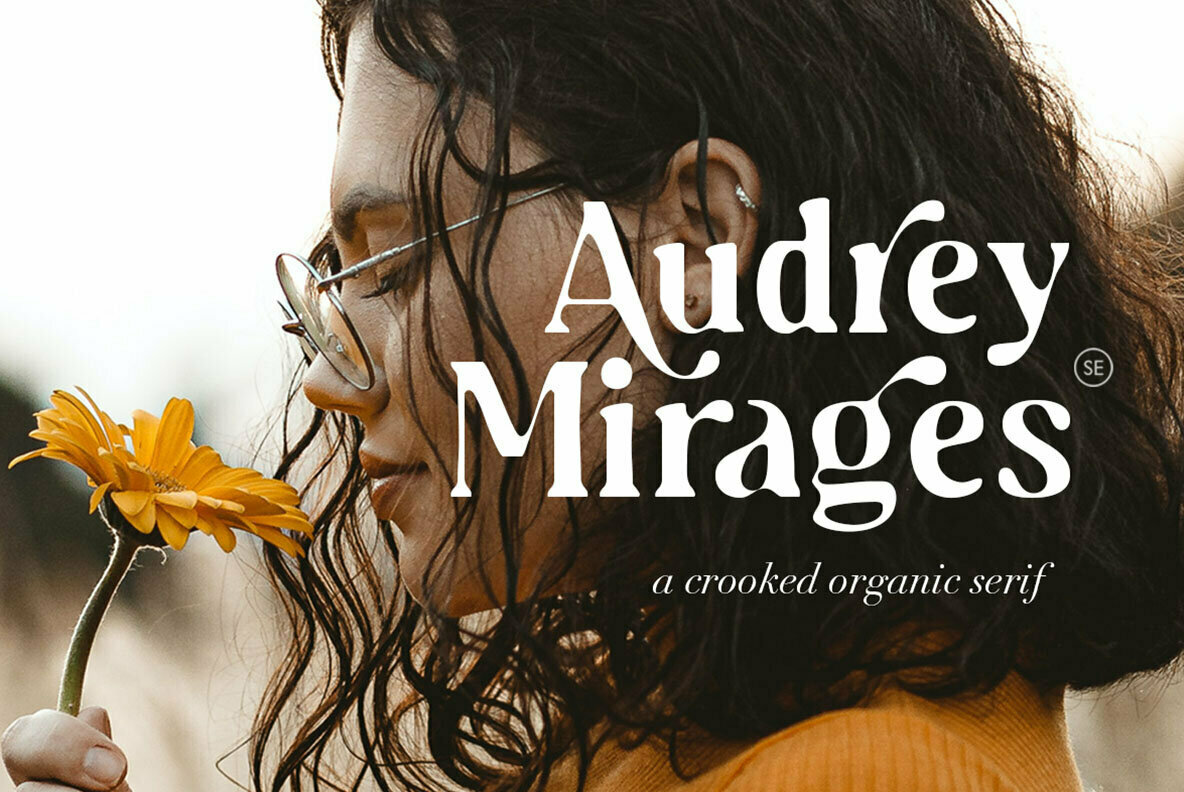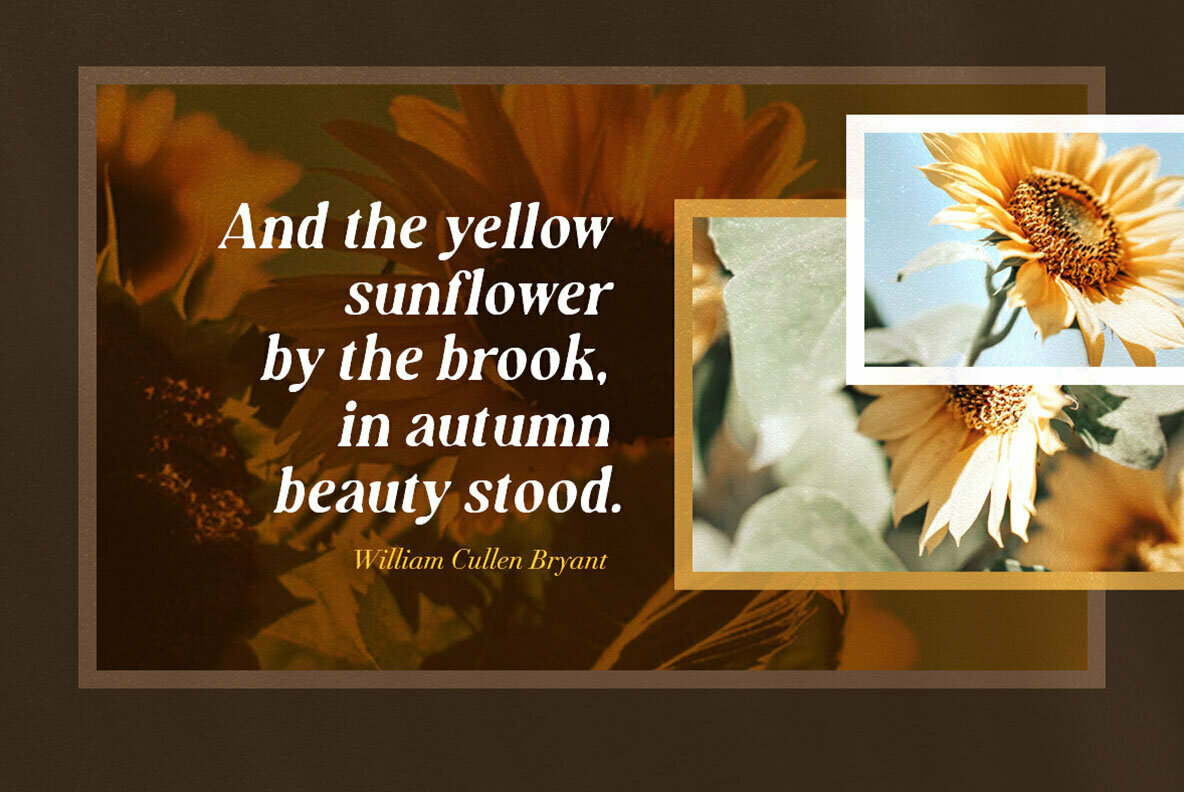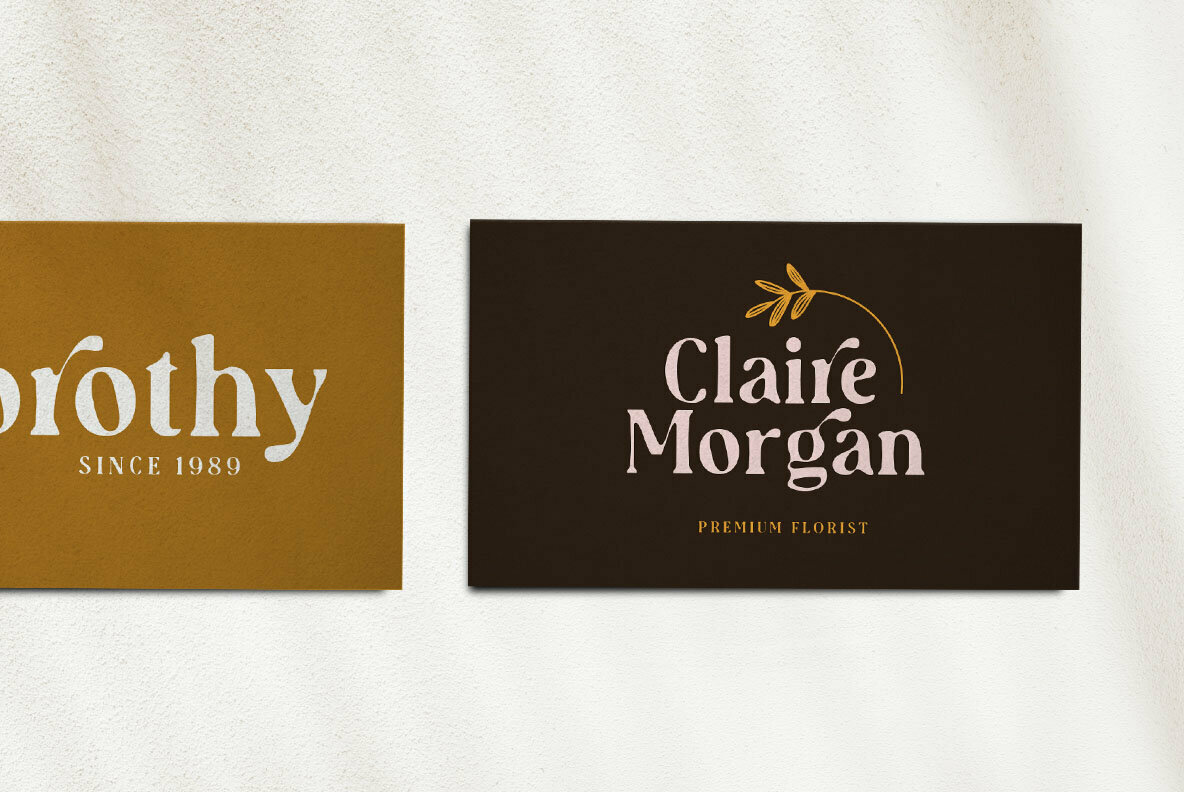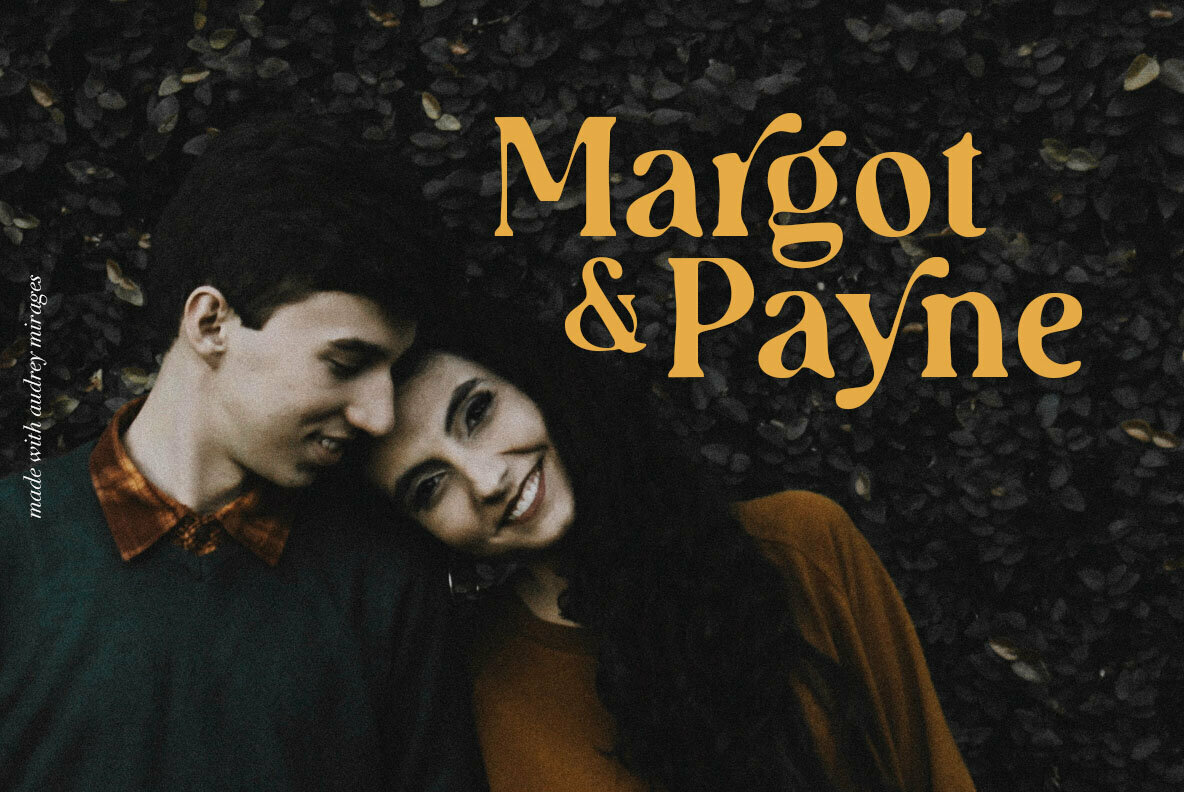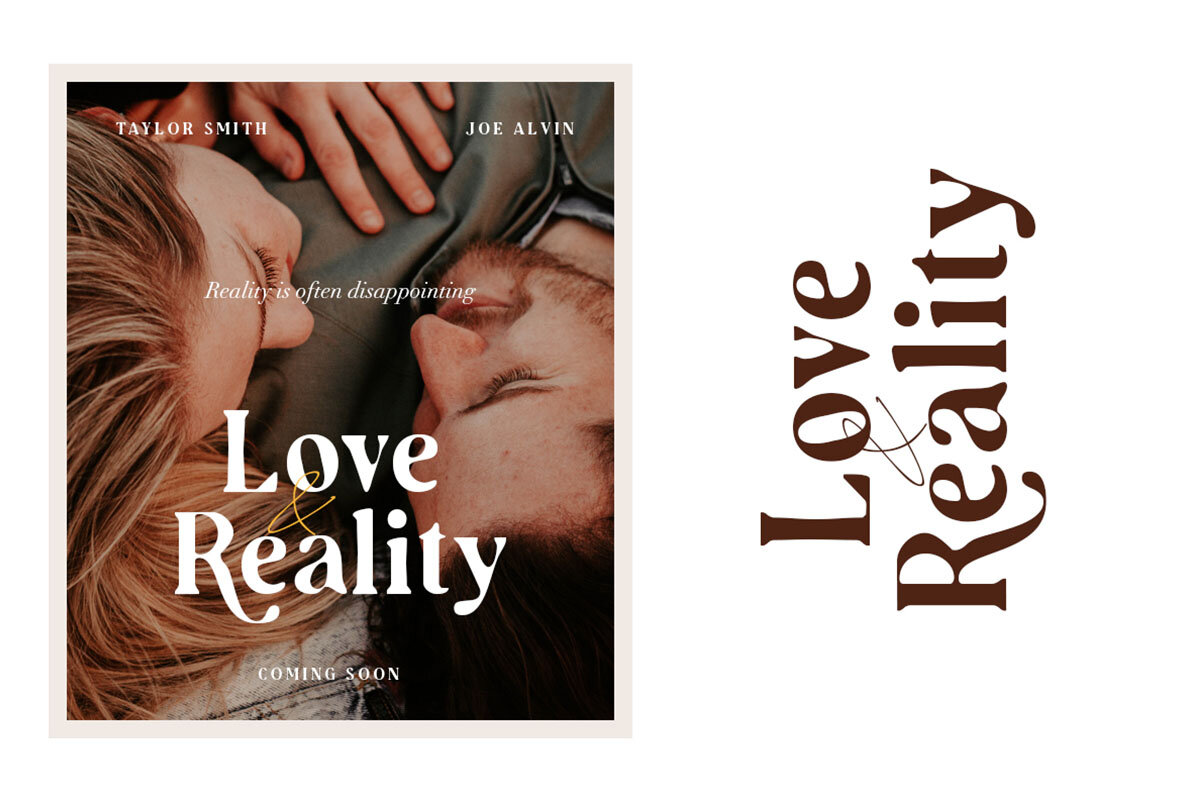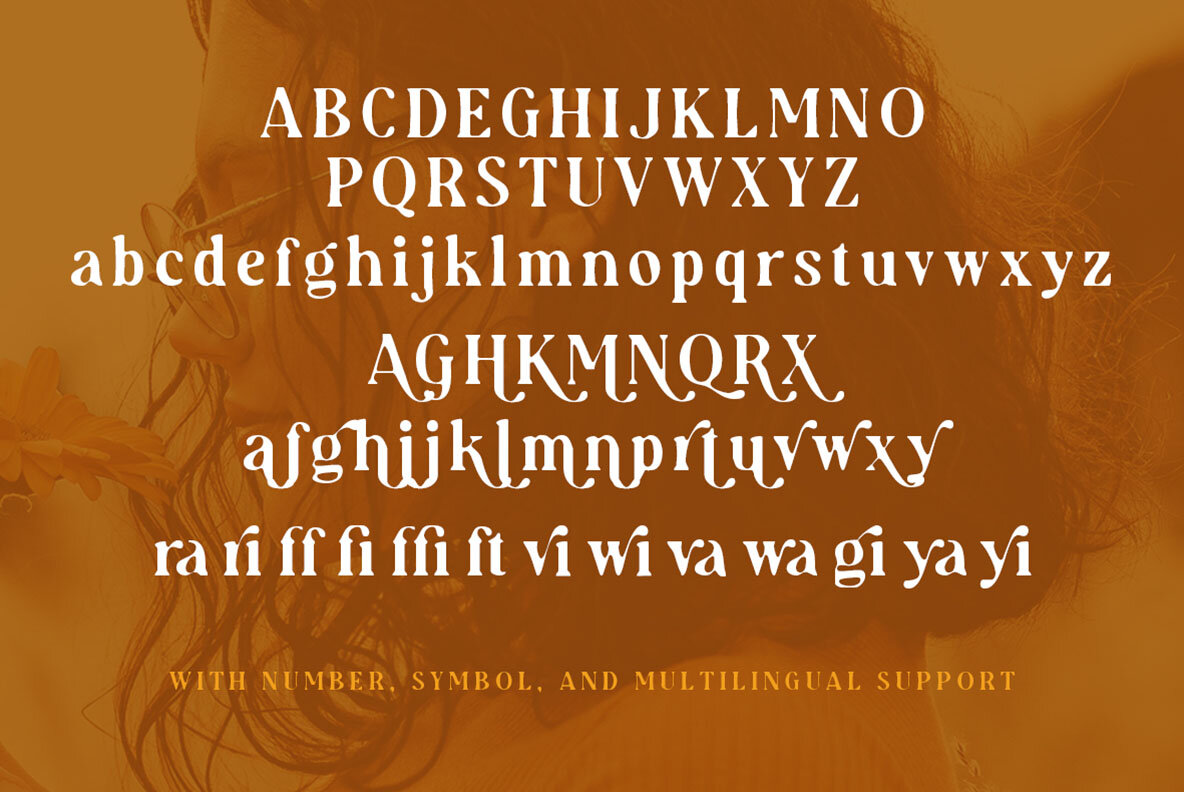
Audrey Mirages
Audrey Mirages is crooked stylist serif that will make your design feels more organic and handmade. This font contains alternates and ligatures. Also already PUA Encoded!